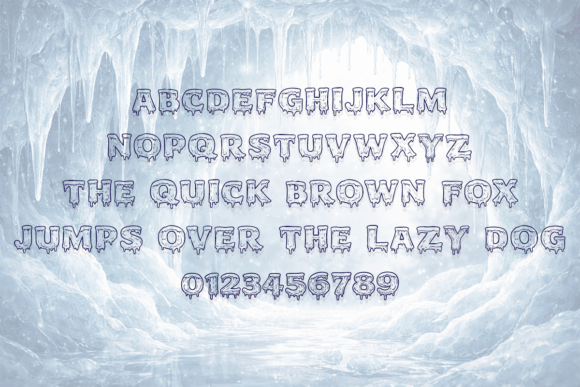
Introduction to Melting Ice Font
Have you ever been working on a creative project, and just the right font has been missing to bring it all together? For designers, finding the perfect typography can be a game-changer, elevating an idea from good to great. I recall a project where a client wanted a winter-themed design, and I was struggling to find the perfect font to capture the essence of the season. That’s when I stumbled upon the Melting Ice Font, and everything fell into place.
This stunning font, with its intricate patterns of melting ice, instantly added a touch of magic to the design. Its crisp, refreshing appeal made it a perfect fit for the project, and I knew I had to share it with the design community. In this article, we’ll dive into the world of the Melting Ice Font, exploring its features, uses, and why it’s a valuable resource for designers.
Whether you’re working on a high-quality design project or just need a reliable design resource, the Melting Ice Font is sure to impress. With its transparent background and sleek, modern design, it’s a free download that’s perfect for any creative endeavor.
Key Features of Melting Ice Font
- Unique, hand-drawn design with a high level of detail, making it a valuable design resource for creative projects.
- Comes in a single font size, with various styles and weights available for added flexibility and customization.
Honest Review: Melting Ice Font
I recently had the chance to work with the Melting Ice Font, and I must say it’s a high-quality design resource that can elevate any creative project. One of the standout features is its transparent background, which makes it easy to integrate into various design elements.
- High-quality design with smooth lines and subtle details.
- Transparent background makes it versatile for different design applications.
- May not be suitable for designs that require bold, dramatic fonts.
- Limited character set, which may not be ideal for longer texts.
Overall, I’m impressed with the Melting Ice Font’s potential to add a touch of elegance to a design. While it may have some limitations, it’s a valuable resource for designers looking for a high-quality, free download to enhance their creative projects.
Tips for Getting the Most Out of Melting Ice Font
To get the most out of the Melting Ice Font, use it in combination with a transparent background to create a stunning visual effect. You can also experiment with different font sizes and colors to achieve the desired look.
The Melting Ice Font is ideal for:
- Creating high-quality invitations and event materials.
- Designing creative graphics and social media posts.
- Developing brand identities and logos.
Alternatives to Melting Ice Font
1. Frosty Script
Frosty Script is a high-quality, elegant font perfect for creative projects that require a touch of sophistication. It features a transparent background and a delicate, cursive design that’s ideal for invitations, greeting cards, or any design that needs a soft, icy feel.
Compared to Melting Ice Font, Frosty Script has a more refined and polished appearance, making it suitable for more formal designs. It’s available for free download and can be used as a design resource for various projects.
2. Glacial Sans
Glacial Sans is a modern, sans-serif font that’s ideal for creative projects that require a clean and minimalist design. It features a transparent background and a sleek, geometric design that’s perfect for digital designs, logos, or any project that needs a bold, icy feel.
Unlike Melting Ice Font, Glacial Sans has a more angular and modern appearance, making it suitable for designs that require a touch of futurism. It’s available for free download and can be used as a design resource for various projects.